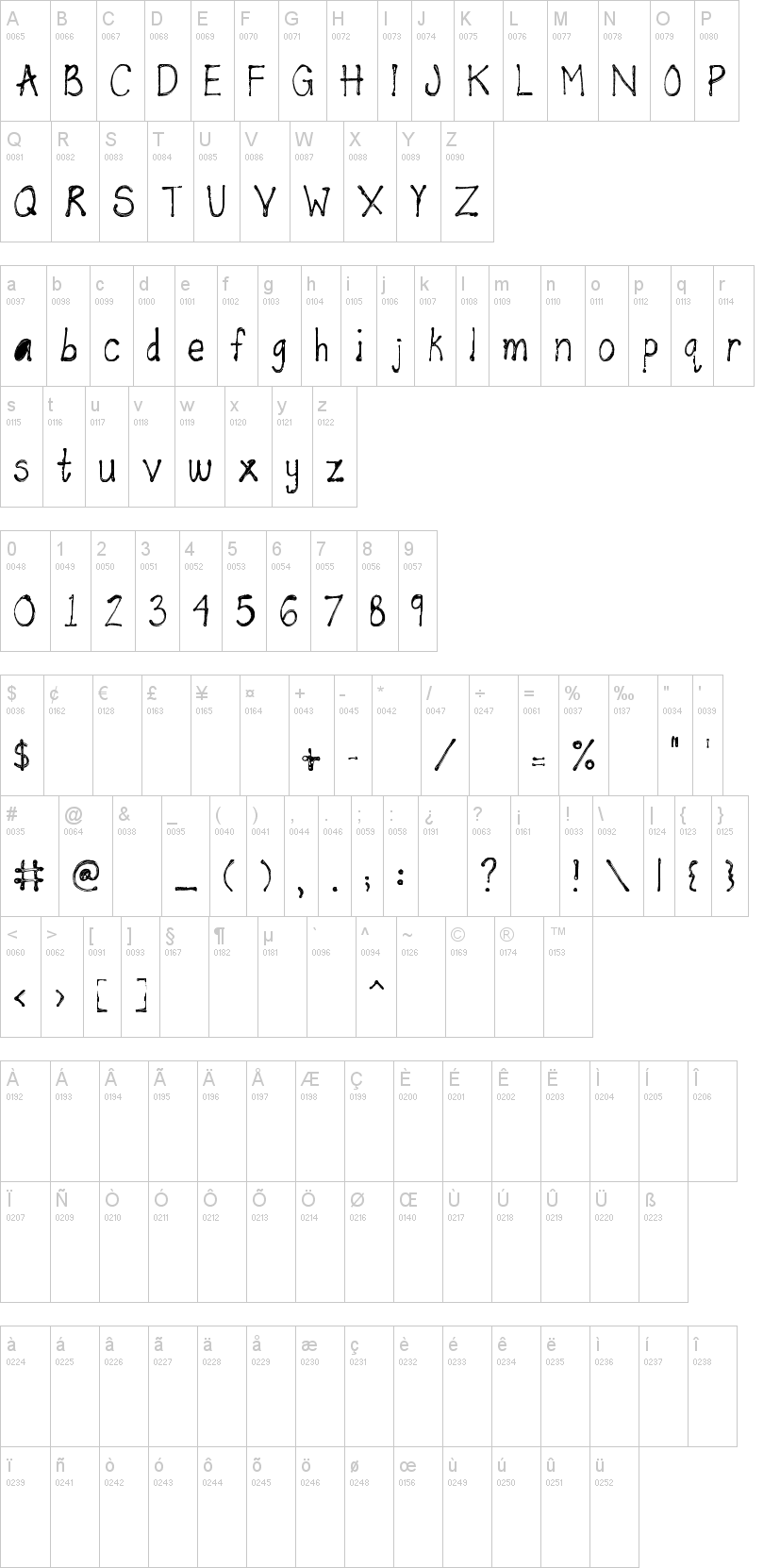
Шрифт Puff Paint
This font was inspired by my grandmothers clothing she made and painted with puff paint. As a child I grew up wearing colorful puff paint clothing and decided there should be a font to represent the bubbly memories I have.